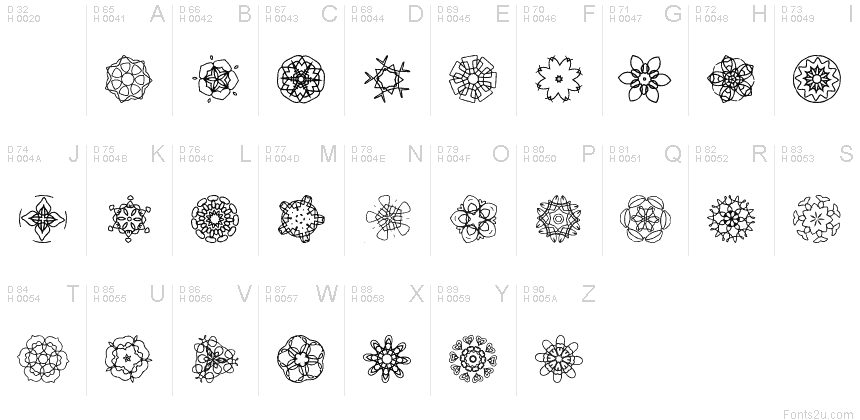
JI Kaleidoscope Bats 4
JI Kaleidoscope Bats 4 font by Jeri Ingalls is a free artistic dingbat typeface filled with hand-drawn, kaleidoscopic symbols. Each mark feels like a tiny inked mandala: looping petals, mirrored hearts, whirling stars and snowflake-like wheels that look sketched straight from a notebook. The lines are slightly wobbly and organic, giving every glyph a warm, crafty character rather than a sterile geometric pattern.
Using JI Kaleidoscope Bats 4, you can drop instant decorative medallions into coloring pages, scrapbooking layouts, spiritual or yoga flyers, zines, stickers, and handmade card designs. These dingbats scale nicely for both small corner accents and big, poster-size centerpieces; just track them a bit wider when you use several in a row as a border. This free font pairs naturally with a clean, simple sans serif so the intricate symbols stay in the spotlight.